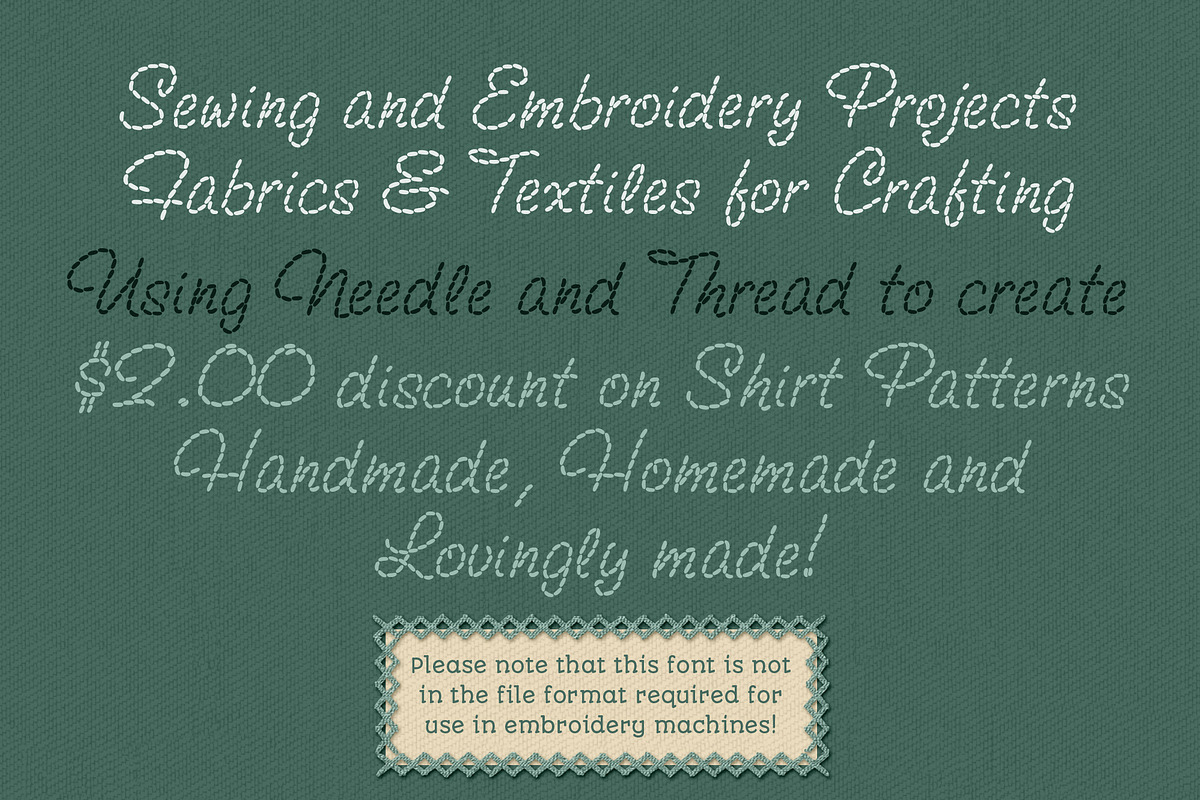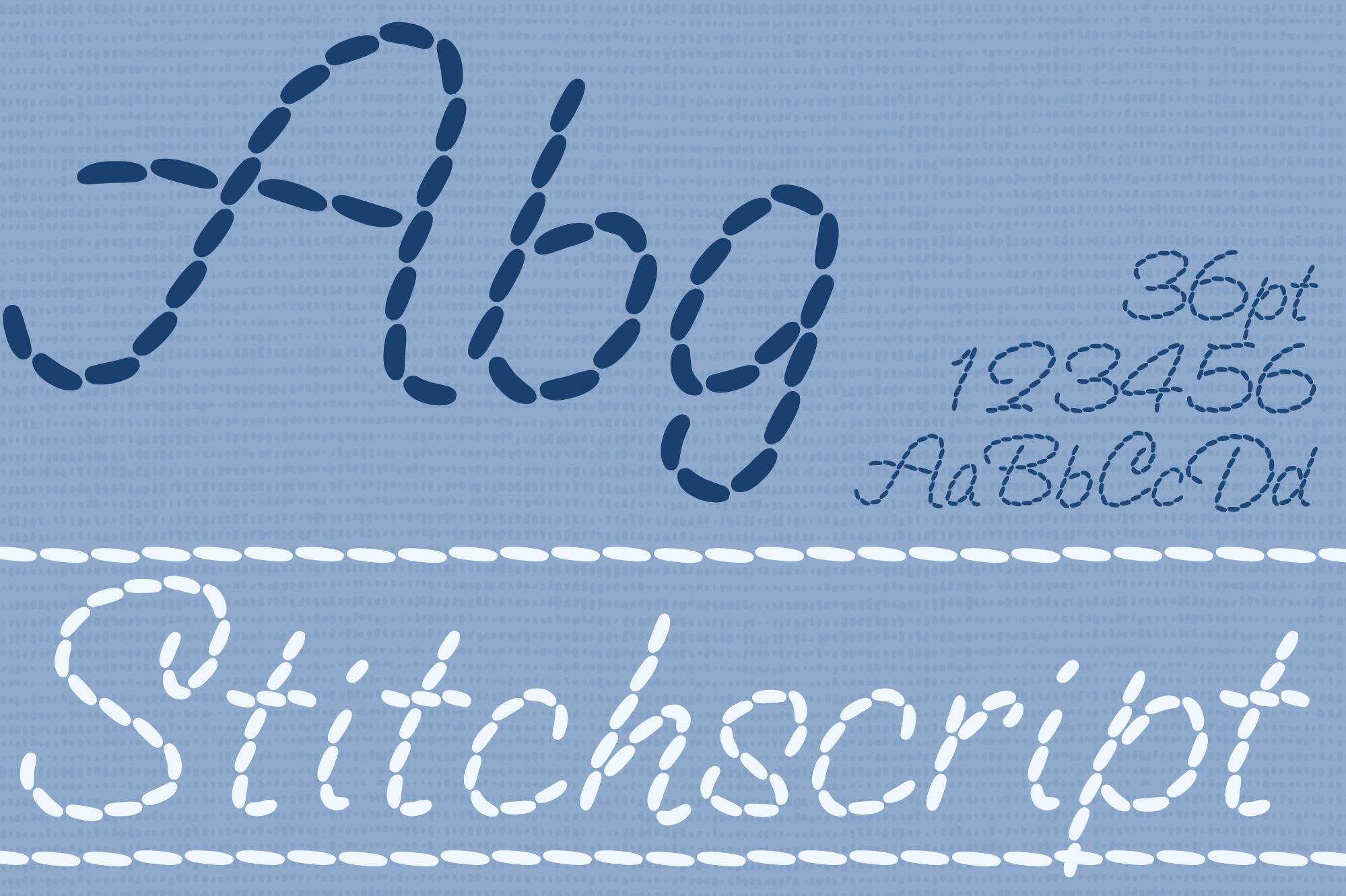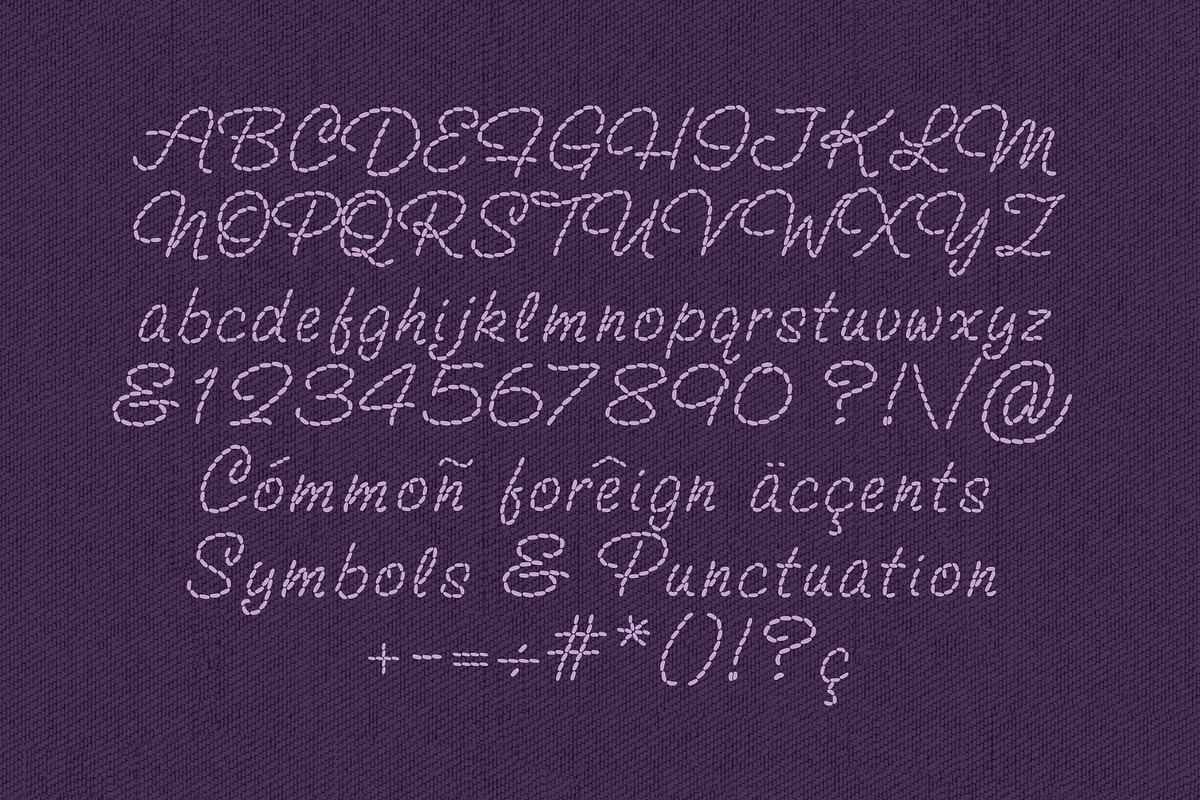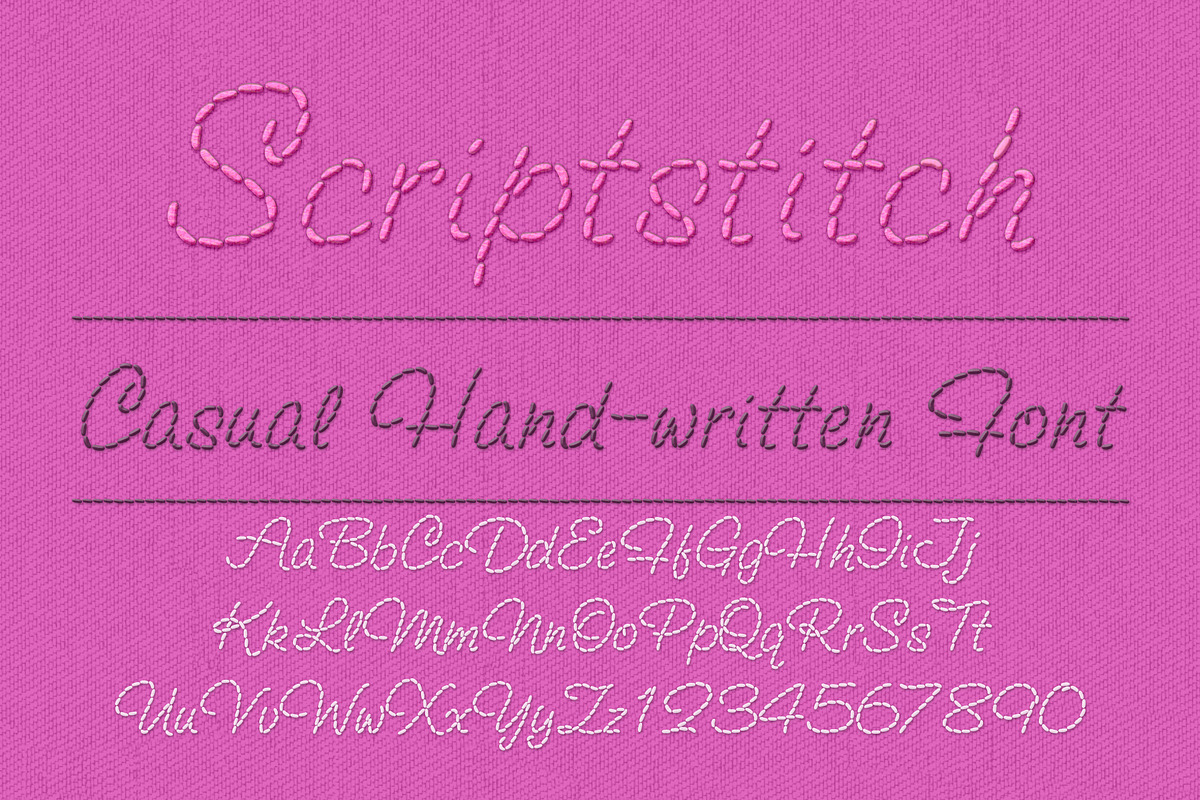
Embroidery Script Casual Font
This is a casual hand-written slanted script style font in a bold stitch line. It contains all the common foreign accents and symbols, numbers, punctuation and basic maths symbols. Great for styling in most graphics programs. See my other embroidery style fonts at these links. https://creativemarket.com/Joiaco/3554922-Embroidery-Font-Cursive-Backstitch https://creativemarket.com/Joiaco/3357074-Embroidery-Cursive-Chainstitch -https://creativemarket.com/Joiaco/381299-Embroidery-Running-Stitch -https://creativemarket.com/Joiaco/381272-Embroidery-Chainstitch -https://creativemarket.com/Joiaco/381265-Embroidery-Backstitch